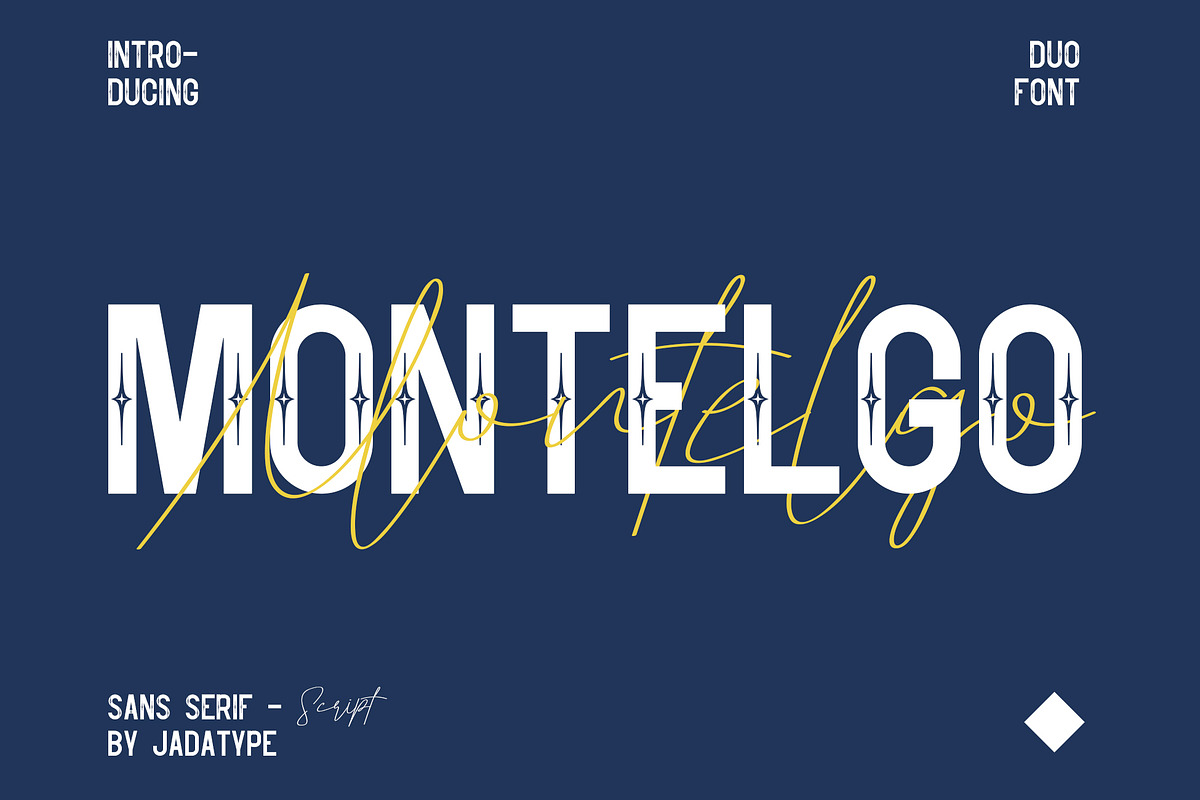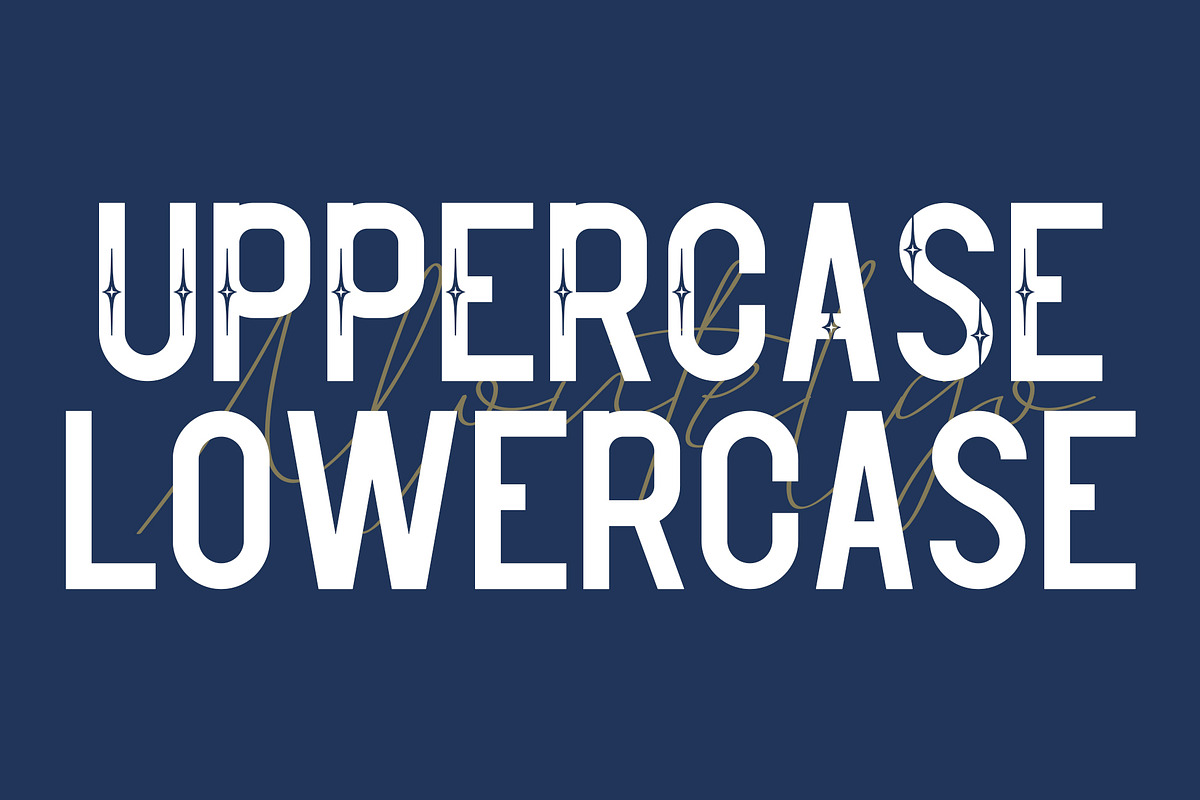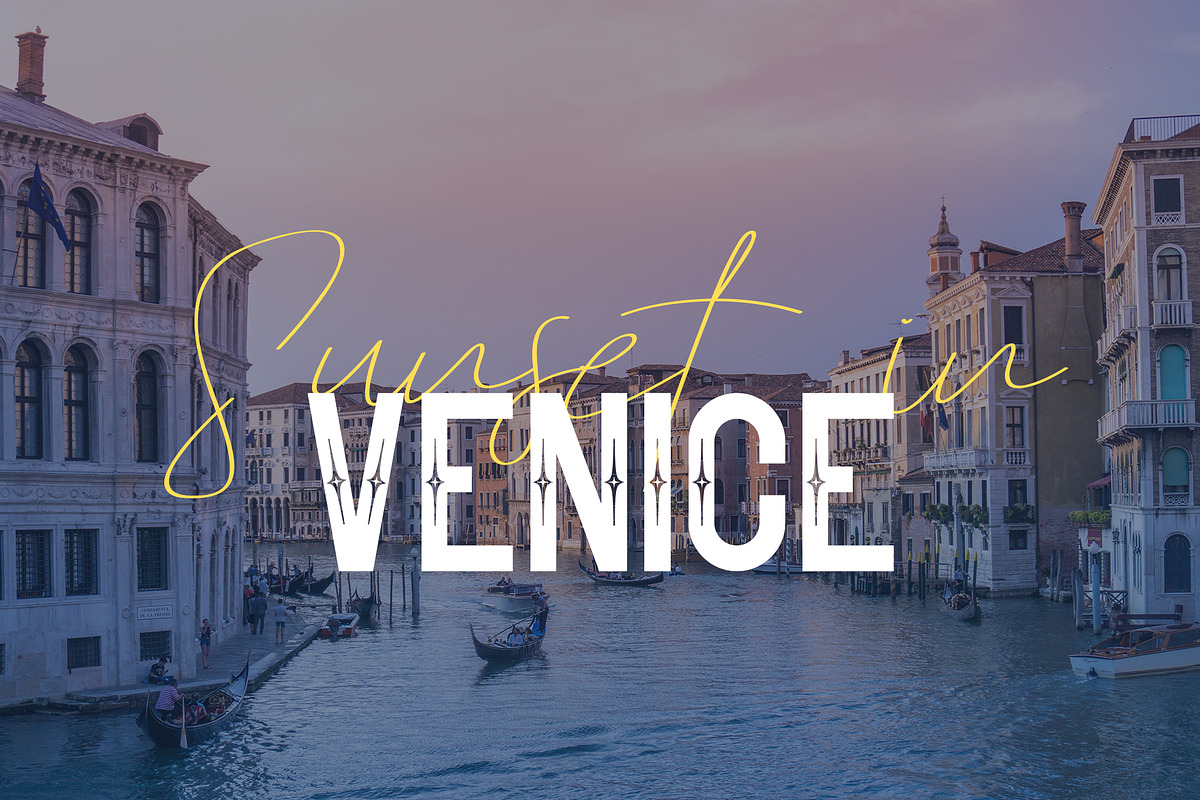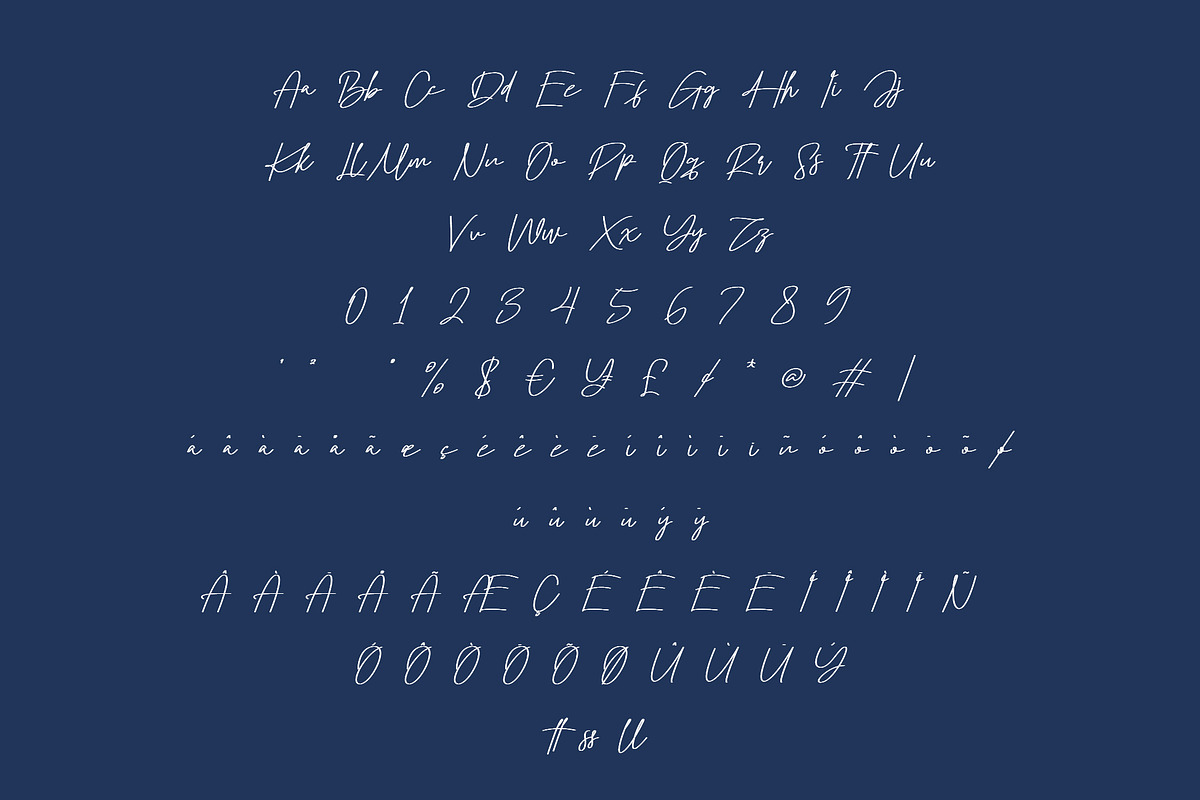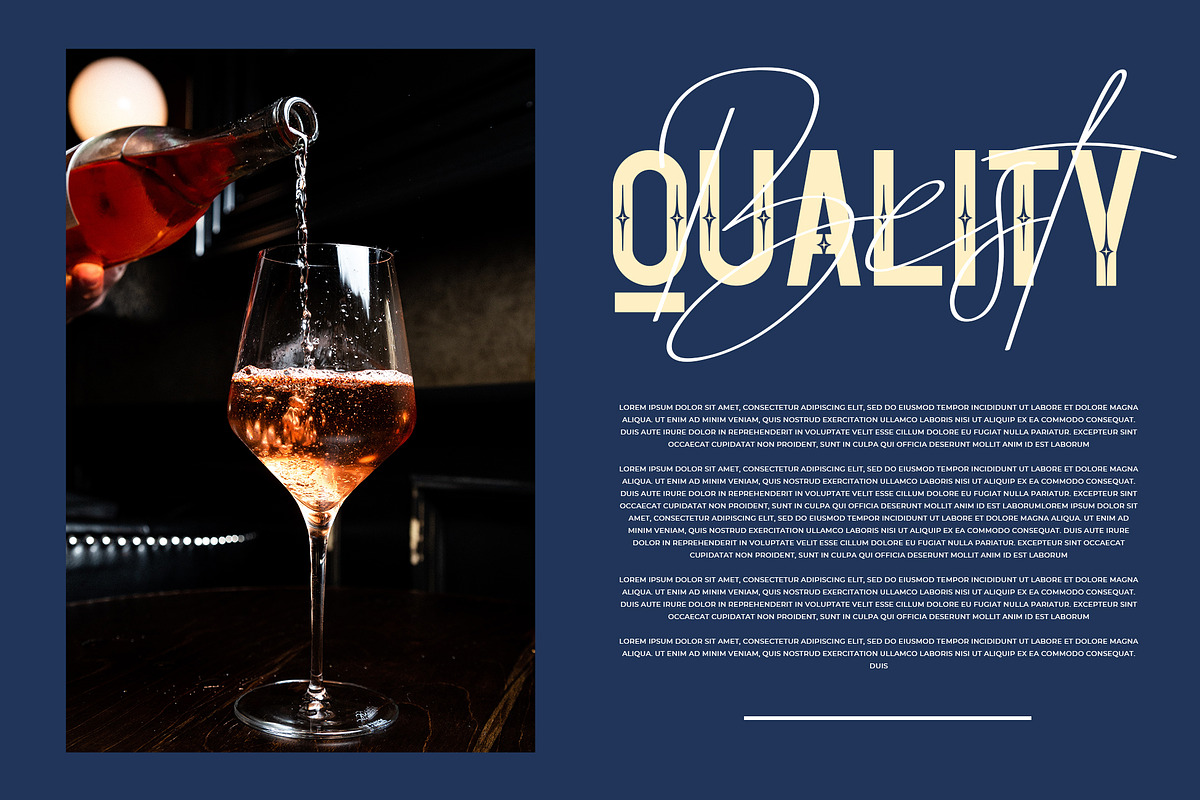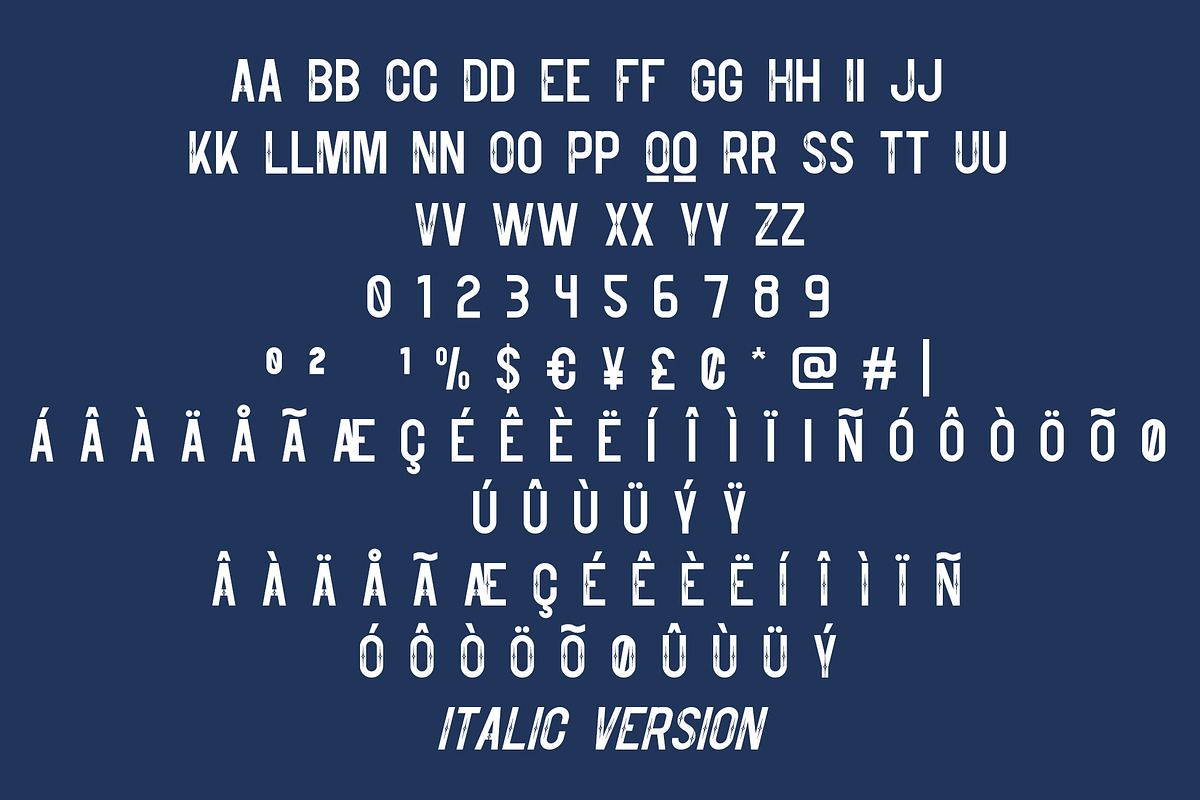
Montelgo | Duo Font
Montelgo is a font family that has sans serif and script in it. 1 price for two font styles that complement each other. suitable for social media, logotype, craft, advertisements, and so on. contains standard English letters, numbers, punctuation, and several accents that support multilingualism.
- Script & Sans Serif